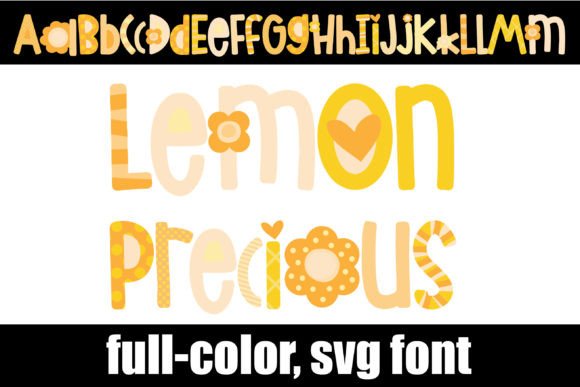
Dive into a world of enchantment with Lemon Precious Font – a kaleidoscope of color that brings your creative visions to life! Spark your imagination and create captivating designs that burst with personality.
Unleash the extraordinary with Lemon Precious Font, an extraordinary display font that's packed with boundless possibilities. Let your words dance across the page with a vibrant spectrum of hues, capturing hearts and turning every project into a masterpiece.
Experience the joy of effortless creativity as Lemon Precious Font seamlessly weaves its magic into your designs. Witness the transformation as ordinary text morphs into vibrant, eye-catching expressions that leave a lasting impression.
Immerse yourself in the versatility of Lemon Precious Font, a creative chameleon that adapts to your every whim. From playful logos that dance with color to elegant invitations that exude sophistication, this font is your ultimate design companion.
Unlock a world of limitless possibilities with Lemon Precious Font, where your ideas take center stage. Craft stunning social media posts that ignite engagement, design eye-catching branding materials that leave a lasting impact, and create unforgettable cards and invitations that celebrate life's special moments.
But wait, there's more! Lemon Precious Font is not just a font; it's an experience that invites you to explore the extraordinary. With its built-in OpenType color features, you can effortlessly add a burst of color to your designs, transforming them into vibrant works of art.
Join the creative revolution and embrace the brilliance of Lemon Precious Font. Let your imagination soar as you create designs that captivate, inspire, and ignite the senses. Discover a world where color and creativity intertwine, where your vision takes center stage, and where every project becomes a stunning masterpiece.